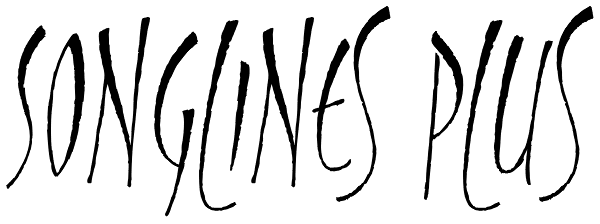
Songlines
Songlines is based upon a pen-drawn script drawn by Michael Harvey to illustrate a poem by Johannes Thurman. The expressive and rough-edged letterforms of Songlines do not have any lowercase characters. Instead, alternative uppercase characters...